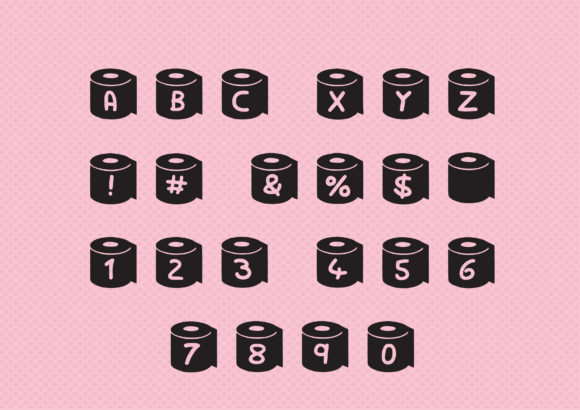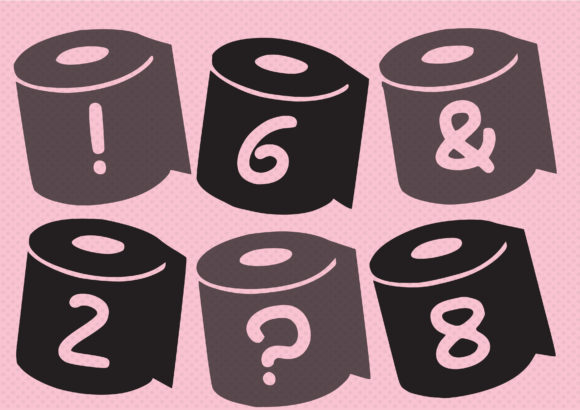
Introduction to Play Toilet Font
Remember that moment when you stumbled upon the perfect design element that took your project from bland to grand? For many designers, this moment comes when they discover a high-quality font that elevates their creative project to the next level. For those in search of that special something, we’re excited to introduce the delightful Play Toilet Font – a charming decorative font perfect for adding a touch of whimsy to your designs.
As a valuable design resource, the Play Toilet Font is ideal for packaging, educational campaigns, and even humorous designs that require a bold and playful vibe. With its transparent background, this free download offers endless possibilities for creative expression. Whether you’re working on a school project or a fun campaign, the Play Toilet Font is sure to bring a smile to your audience’s faces.
Key Features of Play Toilet Font
- High-quality, unique design perfect for creative projects
- Unique, hand-drawn style adds a creative touch to any design project
Honest Review: Play Toilet Font
- The high quality of the font is immediately apparent, with crisp lines and smooth curves.
- The transparent background allows for easy integration with any design element.
- The font’s unique design makes it perfect for adding a touch of whimsy to a project.
- The font’s limited character set may be a drawback for some users.
- The font’s design, while unique, may not be to everyone’s taste.
Overall, I think the Play Toilet Font is a solid addition to any design resource collection. While it may not be perfect, its high quality and unique design make it a great option for creative projects. Just be aware of its limitations, and use it wisely.
Play Toilet Font
The Play Toilet Font is ideal for a variety of creative projects, including graphic design, branding, and digital art. Its unique design and transparent background make it a versatile font for any design need.
Experiment with different font sizes and colors to get the most out of the Play Toilet Font. Combine it with other design elements to create a visually appealing design. The font’s high quality ensures that it will look great in any design application.
Alternatives to Play Toilet Font
Alex Brush is a high-quality, elegant font suitable for various design projects, including logos, posters, and greeting cards. It features a transparent background and a beautiful brush stroke effect. This font is ideal for designers who want to add a touch of sophistication to their creative project. In comparison to Play Toilet Font, Alex Brush is more refined and suitable for formal designs.
Great Vibes is a modern, cursive font perfect for designers who want to add a playful touch to their creative project. It features a high-quality design and a transparent background, making it ideal for logos, posters, and social media graphics. Unlike Play Toilet Font, Great Vibes is more versatile and suitable for a wide range of design projects.
Carolyna Pro is a high-quality, modern font suitable for designers who want to add a touch of elegance to their creative project. It features a transparent background and a beautiful, cursive design. This font is ideal for designers who want to create a unique and sophisticated look for their design project. In comparison to Play Toilet Font, Carolyna Pro is more sophisticated and suitable for formal designs.
Alfa Slab One is a high-quality, sans-serif font perfect for designers who want to add a touch of modernity to their creative project. It features a transparent background and a clean design, making it ideal for logos, posters, and business cards. Unlike Play Toilet Font, Alfa Slab One is more modern and suitable for a wide range of design projects.